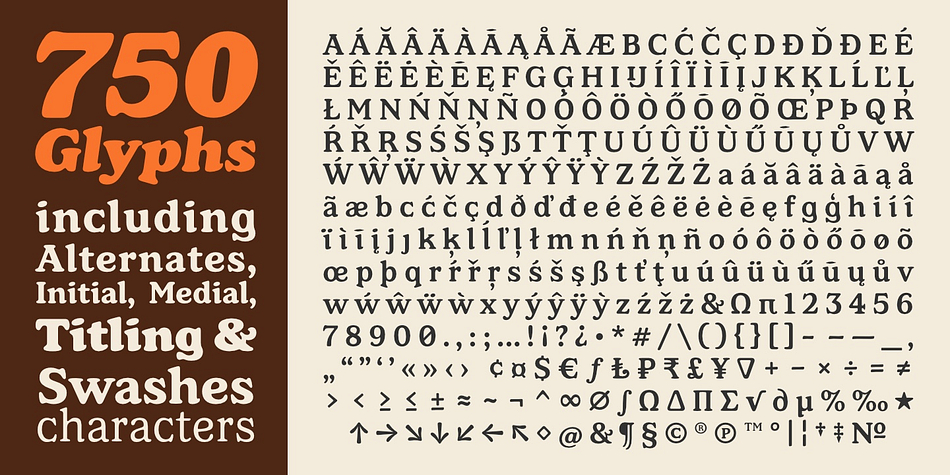
CA Edwald
Designed by Thomas Schostok and Stefan Claudius, CA Edwald is a serif font family. This typeface has ten styles and was published by Cape Arcona Type Foundry.
CA Edwald, the superbly crafted alphabet design now available in 5 weights, combining the familiar, the unusual, the practical and the aesthetic.
Plan ahead and make use of the assorted logo letters that add distinction to your headline.
CA Edwald is a welcome addition to our ever-growing collection of alphabet designs. It is prepared to meet your graphic requirements.
Now there is one trusty Musketeer for today’s advertising.
The illegitimate child of Oswald Bruce Cooper and Ed Benguiat, a mixture or even the “best of”: CA EDWALD.
Unquestionably, the broadside is the heavy artillery of the direct advertising campaign—and CA EDWALD is the ammunition of greatest carrying and hitting power for these big guns of the selling drive.
CA EDWALD typeface was created for actual jobs. Not a fanciful conception of “artistic temperament”. Born to do plain everyday work and do it well. A heavy, solid typeface, with a crisp decisive look, as if it were straight from the workplace where it was designed.
CA EDWALD has that interesting quality called personality embodied with extreme of physical forcefulness. It speaks out boldly and drives home its a message by a vigorous and convincing manner of expressing a super sales type.
Light and Regular styles are suitable for the use in projects that speaks the language of conviction in elegance & finesse and have a distinctively harmonious rhythm and in no sense lose their personality compared to the bold speaking fat styles. There are a lot of alternates, starting and ending letters.
The rules of proportion have been slightly modified to fit the need of the Slab-Serif style. Rounded corners facilitate a more harmonious flow of letters, as well as facilitate the rapid flow of color.
The concept is to achieve a typeface with a more distinct personality for display purposes; a typeface that may serve as an alternative typestyle to other “monstrous” headline-typefaces of today that are used mostly for emphasising.
A typeface of much merit, strong in character, thoroughly original and many points of charm!